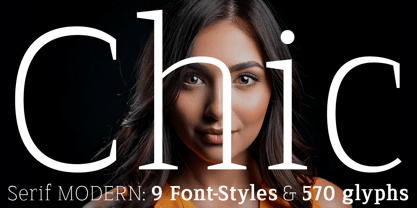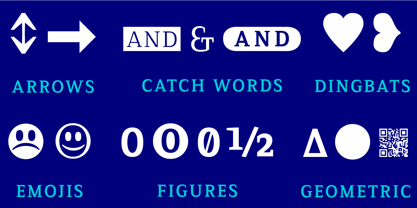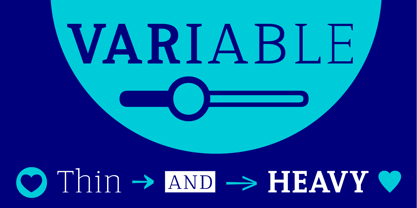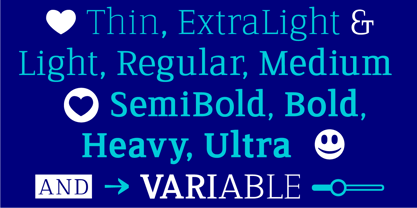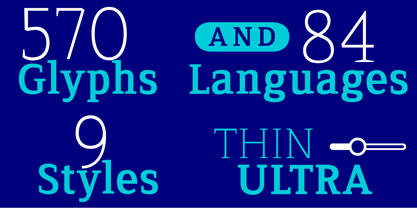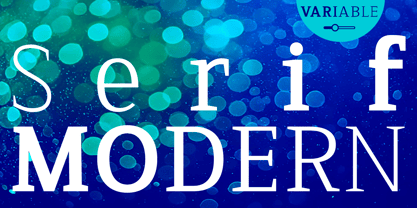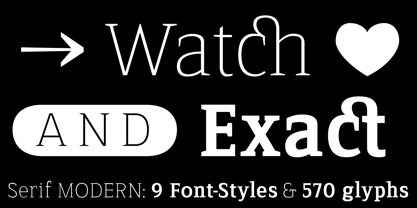
Serif Modern Variable
The variable typeface Serif MODERN is designed from 2024–2025 for the font foundry Typo Graphic Design by the type designer Manuel Viergutz.
9 font-styles (Thin, Extra Light, Light, Regular, Medium, SemiBold, Bold, Heavy, Black) with 570 glyphs (Adobe Latin 3) for 84 languages incl. decorative extras like icons, arrows, catch words, dingbats, emojis, symbols, geometric shapes (type the word #LOVE for ❤ as OpenType-Feature dlig) and stylistic alternates (2 stylistic sets).
For use in logos, packaging for drinks & food, magazines, posters, advertisement plus as webfont for decorative headlines. The font works best for display size.
Font Name: Serif MODERN
Font Styles: 9 font-styles (Thin, Extra Light, Light, Regular, Medium, SemiBold, Bold, Heavy, Ultra)
Font Cate­gory: Variable Sans Serif for head­line size
Glyph Set: 570 glyphs (Adobe Latin 3 incl. decorative extras)
■ Specials: Capital Letter Sharp S (German Versal Eszett U+1E9E) ẞ, Catchwords like FOR, Emojis like Smiley ☺ ☻, Symbols like Heart ♥︎, arrows ➡︎, Geometric Shapes ▲ ⚫️ , Variable Font